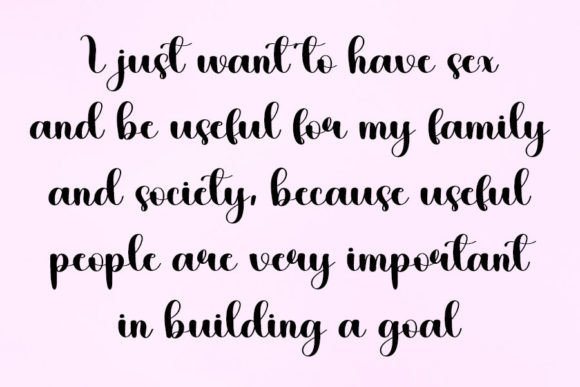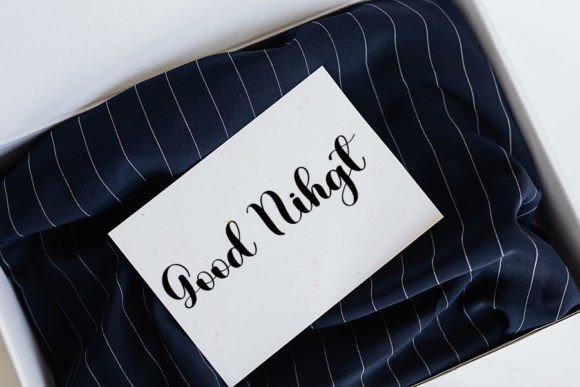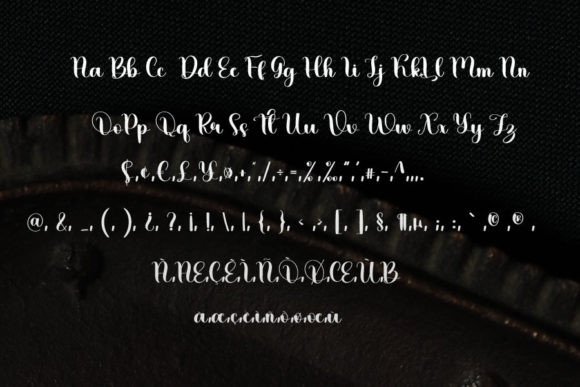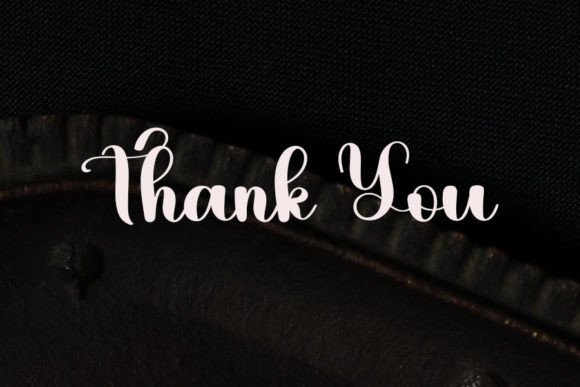
Introducing Handy Font: The Sweet and Beautiful Handwritten Font
Are you looking for a font that can add a touch of luxury and elegance to your design projects? Look no further than Handy Font, a sweet and beautiful handwritten font that is sure to impress. With its unique characters that dance along the baseline, Handy Font is the perfect choice for designers and crafters who want to add a personal touch to their work.
What Makes Handy Font So Special?
Handy Font is a one-of-a-kind handwritten font that features characters that dance along the baseline, giving it a playful and whimsical feel. The font is designed to be highly legible and versatile, making it perfect for a wide range of design projects, from wedding invitations and branding materials to social media graphics and more.
One of the standout features of Handy Font is its ability to add a touch of luxury to any design project. The font’s elegant and refined appearance makes it perfect for high-end branding and marketing materials, while its playful and whimsical feel also makes it suitable for more creative and artistic projects.
Why Choose Handy Font for Your Design Projects?
There are many reasons why Handy Font is the perfect choice for designers and crafters. Here are just a few:
- Unique and Eye-Catching: Handy Font’s unique characters and playful feel make it a standout from other fonts on the market. Its elegant and refined appearance is sure to grab attention and leave a lasting impression.
- Highly Legible: Despite its playful feel, Handy Font is highly legible and easy to read, making it perfect for body text and other applications where readability is key.
- Versatile: Handy Font is a highly versatile font that can be used for a wide range of design projects, from wedding invitations and branding materials to social media graphics and more.
- Luxury Appearance: Handy Font’s elegant and refined appearance makes it perfect for high-end branding and marketing materials, while its playful and whimsical feel also makes it suitable for more creative and artistic projects.
How to Use Handy Font in Your Design Projects
Using Handy Font in your design projects is easy. Here are a few tips to get you started:
- Pair it with Other Fonts: Handy Font pairs well with a wide range of other fonts, from serif and sans serif fonts to script and display fonts. Experiment with different pairings to find the one that works best for your project.
- Use it for Headings and Titles: Handy Font is perfect for headings and titles, where its elegant and refined appearance can really shine.
- Add it to Your Brand Identity: If you’re looking to add a personal touch to your brand identity, consider using Handy Font in your logo, website, or marketing materials.
Tips and Tricks for Getting the Most Out of Handy Font
Here are a few tips and tricks for getting the most out of Handy Font:
- Experiment with Different Sizes: Handy Font looks great at a wide range of sizes, from small and delicate to large and bold. Experiment with different sizes to find the one that works best for your project.
- Play with Color: Handy Font looks great in a wide range of colors, from bright and bold to soft and pastel. Experiment with different colors to find the one that works best for your project.
- Use it in Combination with Other Design Elements: Handy Font looks great when used in combination with other design elements, such as images, illustrations, and graphics. Experiment with different combinations to find the one that works best for your project.
| Font Name | Handy Font |
| Author | Ganden Letter |
In conclusion, Handy Font is a sweet and beautiful handwritten font that is sure to add a touch of luxury and elegance to any design project. With its unique characters, highly legible design, and versatile appearance, Handy Font is the perfect choice for designers and crafters who want to add a personal touch to their work. Whether you’re looking to create a high-end brand identity, a beautiful wedding invitation, or a stunning social media graphic, Handy Font is the perfect choice.